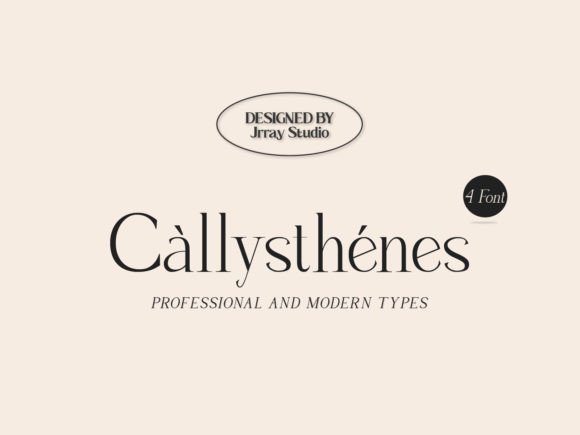
Callysthenes Font: A Professional and Modern Typeface for Creative Projects
In the world of typography, fonts play a crucial role in conveying the tone and personality of a brand or design. A well-chosen font can elevate a project from ordinary to extraordinary, making it essential to select a typeface that is both visually appealing and functional. This is where the Callysthenes Font comes into play, a professional and modern typeface designed to make your appearance look fresh, elegant, and stylish.
Introducing Callysthenes Font
The Callysthenes Font is a versatile and sophisticated typeface inspired by the name of Callisthenes, a Greek historian from Macedon who had connections to both Aristotle and Alexander the Great. This font is perfect for creative projects that require a touch of elegance and refinement, such as logos, cards, apparel, printed products, invitations, product packaging, letterhead, magazines, books, and more.
Key Features of Callysthenes Font
- Modern and Fresh Design: The Callysthenes Font boasts a modern and fresh design that is sure to make your projects stand out.
- Elegant and Stylish: With its elegant and stylish appearance, this font is perfect for projects that require a touch of sophistication.
- Highly Versatile: The Callysthenes Font is highly versatile and can be used for a wide range of creative projects.
- Easy to Read: This font is designed to be easy to read, making it perfect for body text and headlines.
Usage Ideas for Callysthenes Font
The Callysthenes Font is a versatile typeface that can be used for a wide range of creative projects. Here are some usage ideas to get you started:
- Logo Design: Use the Callysthenes Font to create a professional and modern logo for your brand.
- Business Cards: Create stylish and elegant business cards with the Callysthenes Font.
- Apparel Design: Use this font to create eye-catching apparel designs for t-shirts, hoodies, and more.
- Printed Products: The Callysthenes Font is perfect for designing brochures, flyers, posters, and other printed products.
- Invitations: Create beautiful and elegant invitations for weddings, parties, and other events.
- Product Packaging: Use the Callysthenes Font to create stylish and modern product packaging.
- Letterhead: Create professional letterheads with the Callysthenes Font.
- Magazines and Books: Use this font for designing magazines, books, and other publications.
The Inspiration Behind Callysthenes Font
The Callysthenes Font is inspired by the name of Callisthenes, a Greek historian from Macedon who lived in the 4th century BC. Callisthenes was a renowned historian and rhetorician who had connections to both Aristotle and Alexander the Great. He was known for his works on the history of Greece and Macedon, and his writing style was characterized by its elegance and sophistication.
Benefits of Using Callysthenes Font
- Unique and Distinctive: The Callysthenes Font is a unique and distinctive typeface that will help your projects stand out.
- Elegant and Sophisticated: This font is perfect for projects that require an elegant and sophisticated appearance.
- Highly Versatile: The Callysthenes Font is highly versatile and can be used for a wide range of creative projects.
- Easy to Read: This font is designed to be easy to read, making it perfect for body text and headlines.
In conclusion, the Callysthenes Font is a professional and modern typeface that is perfect for creative projects that require a touch of elegance and sophistication. With its unique and distinctive design, this font is sure to make your projects stand out. Whether you’re designing a logo, business card, or publication, the Callysthenes Font is a great choice.